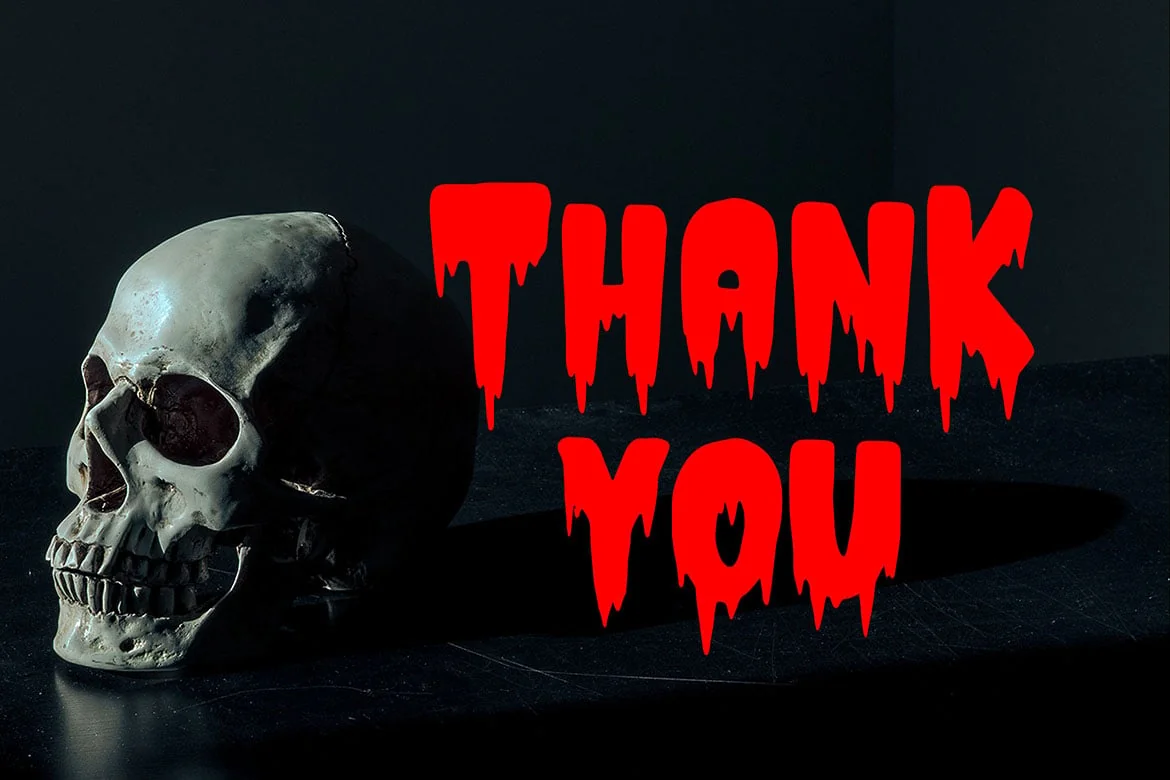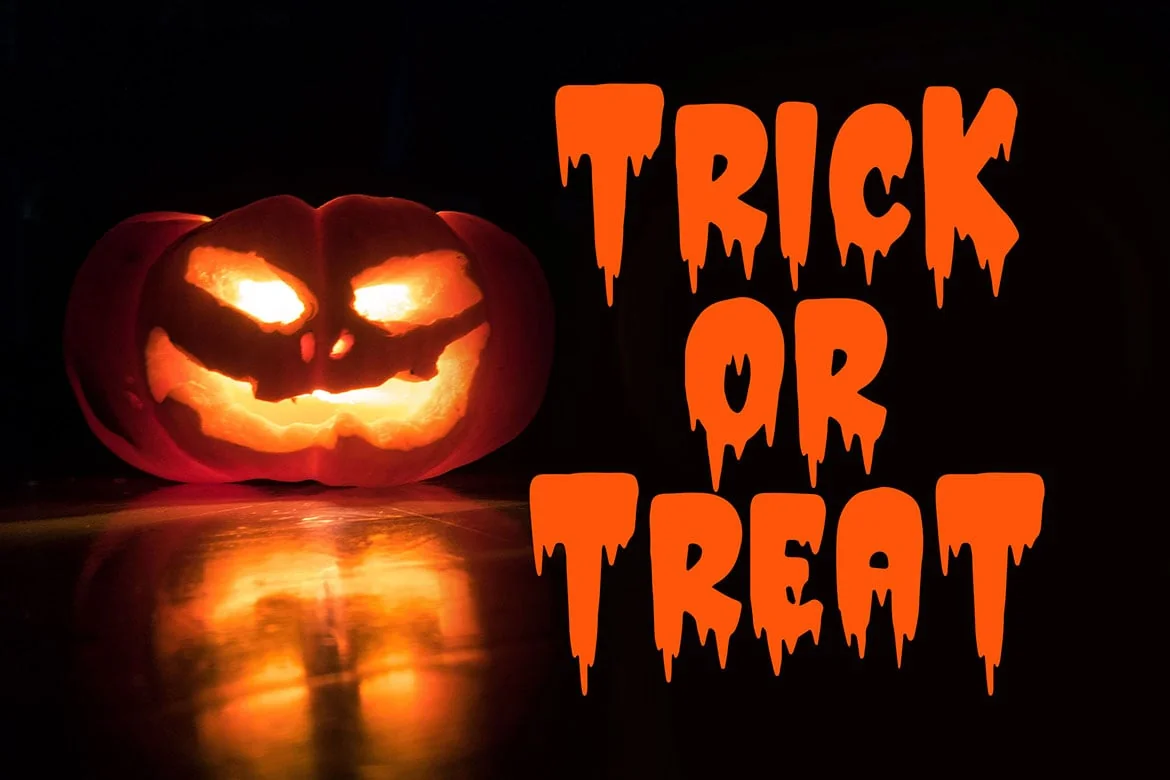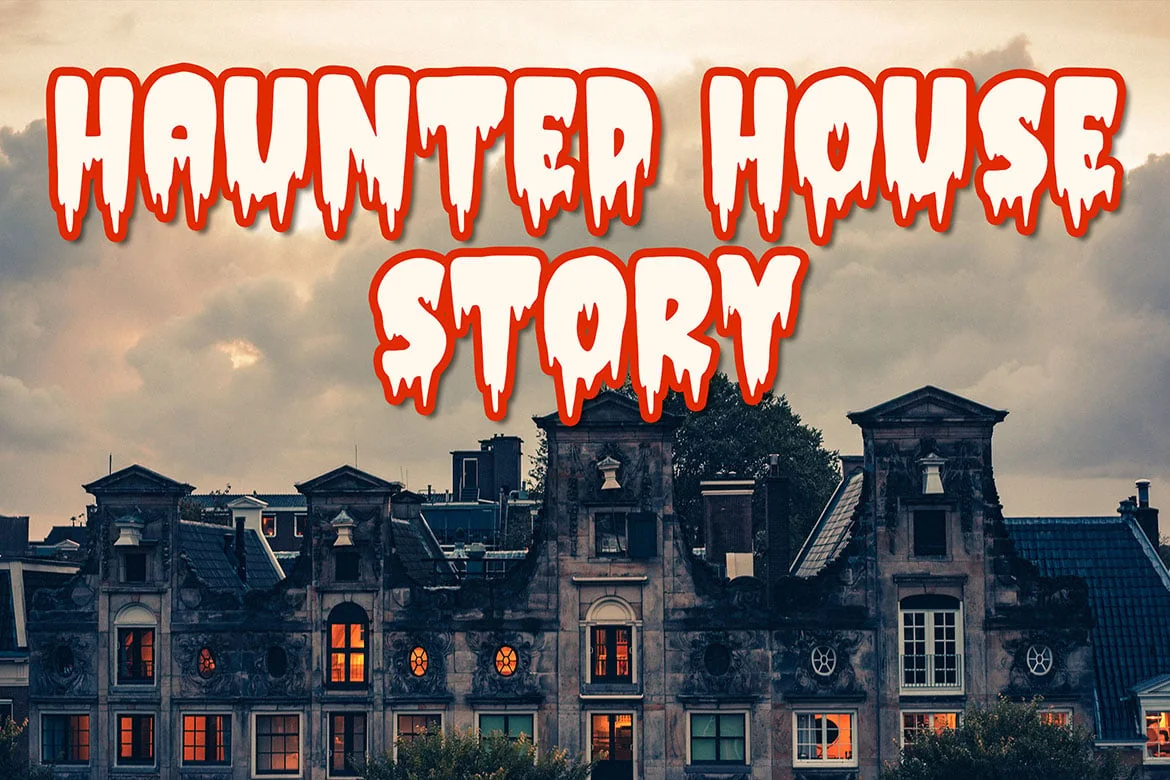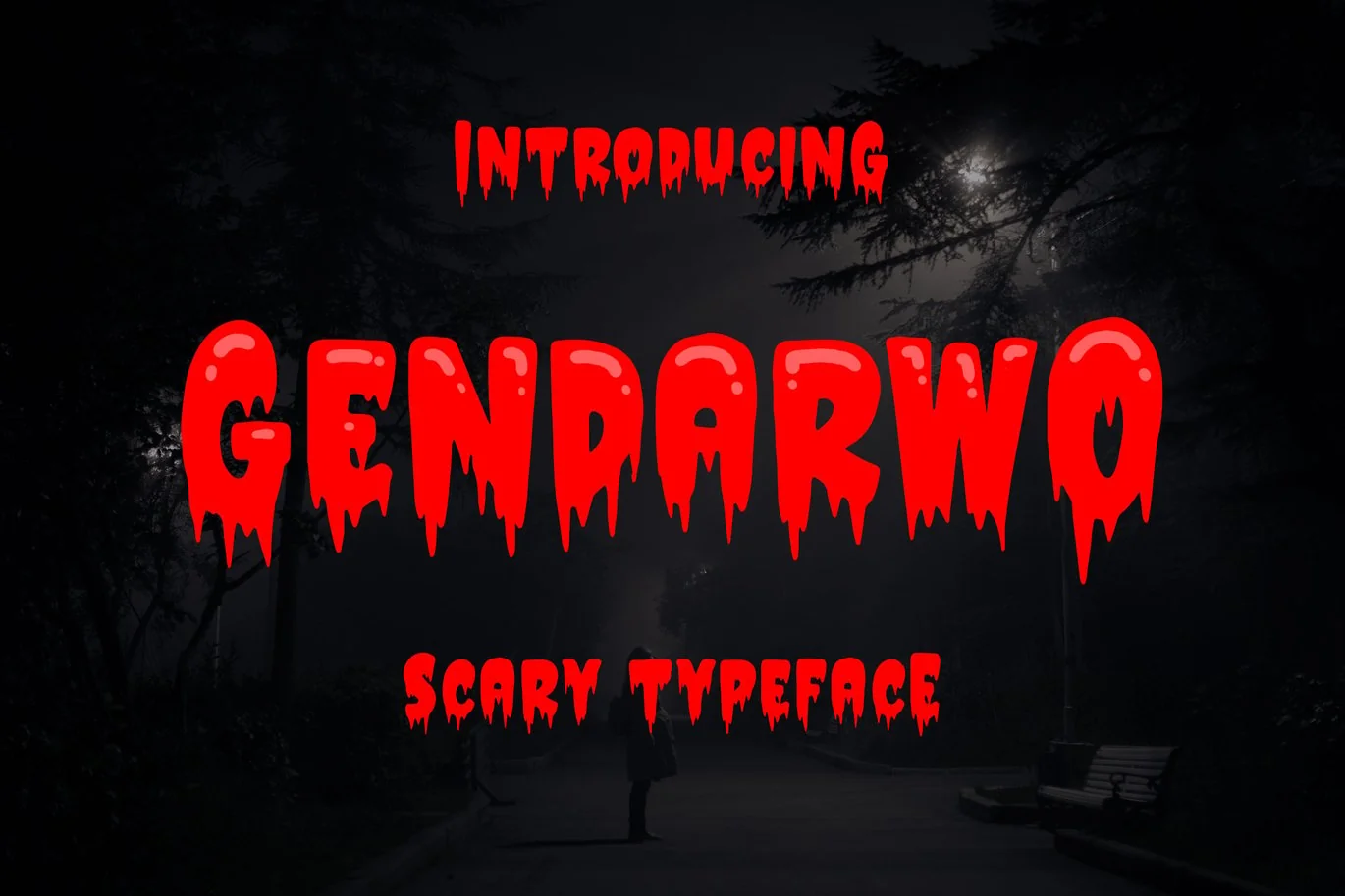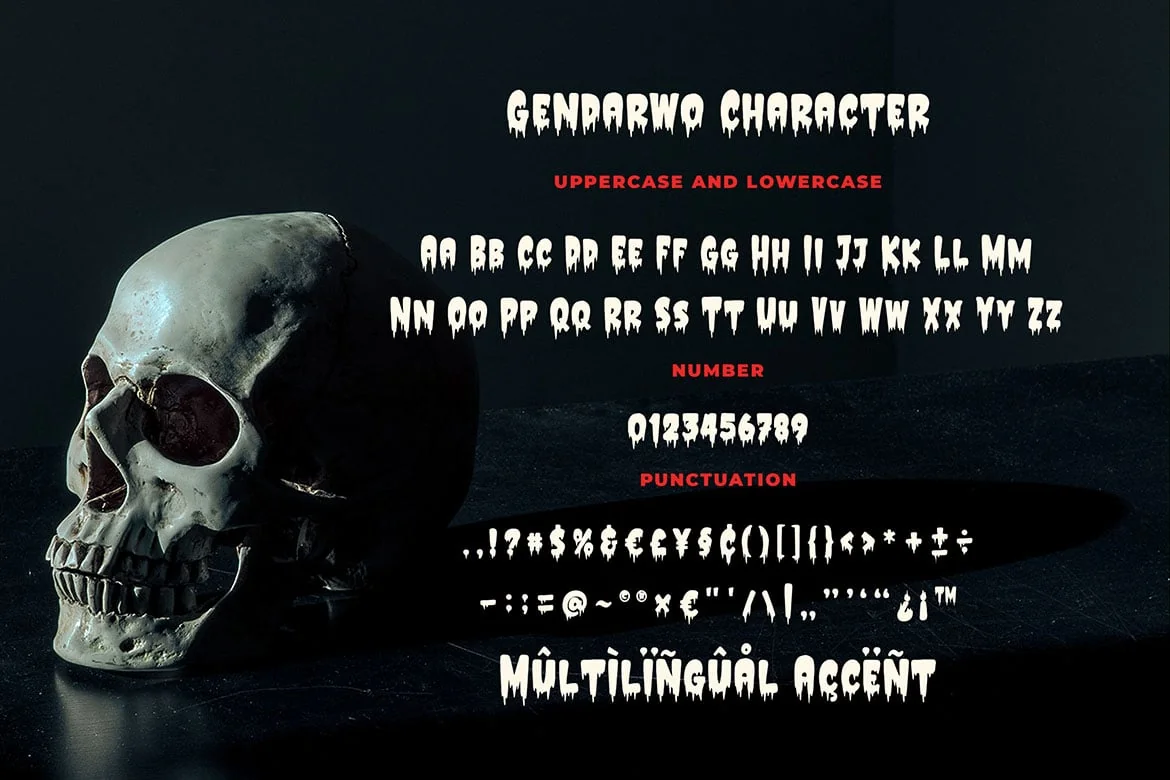
Gendarwo – Scary Typeface
Introducing of our new product the name is Gendarwo Scary Typeface. Gendarwo inspired by Horror theme this font is a fun theme very good for Horror poster, merchandise, sign and etc
MULTILINGUAL ACCENT :
ŽžŠŒšŸÀÁÂÃÄÅÆÇÈÉÊËÌÍÎÏÐŁÑÒÓÔÕÖØÙÚÛÜÝßàáâãäåæçèéêëìíîïłñòóôõöøùúûüýÿ